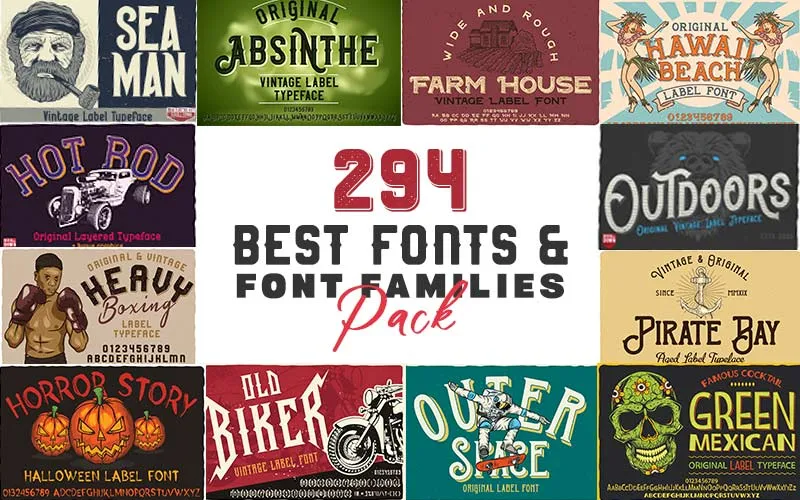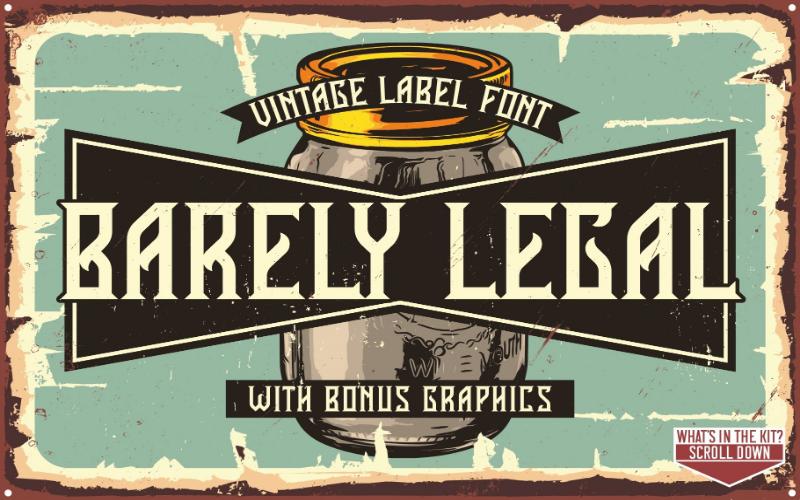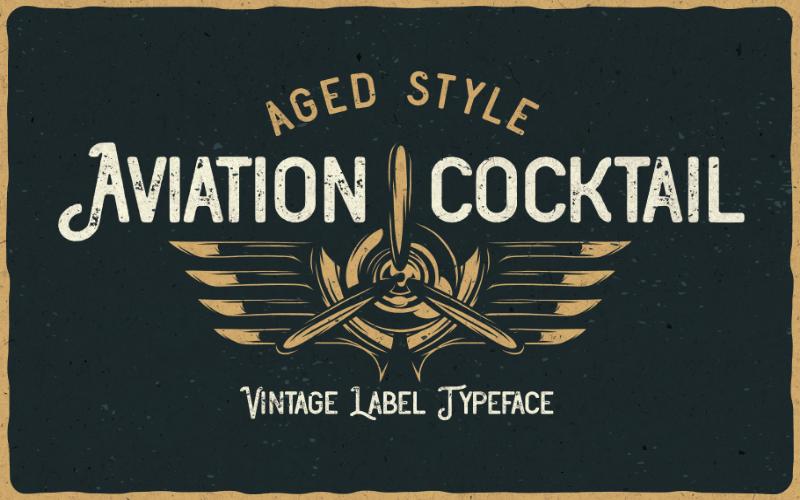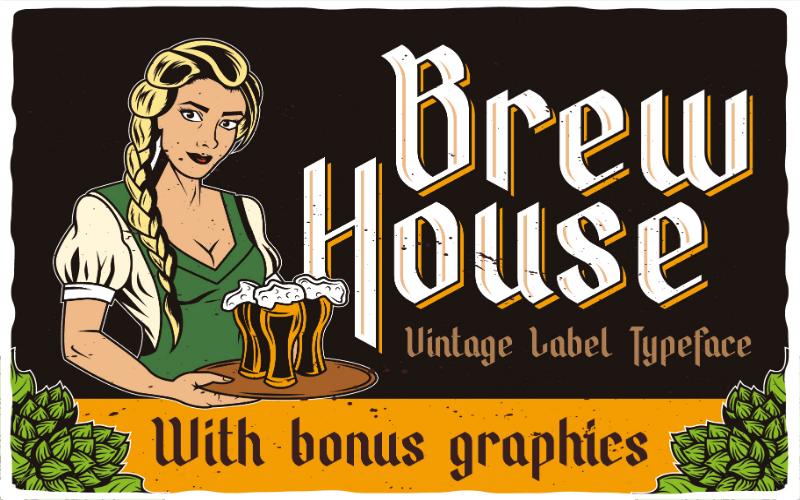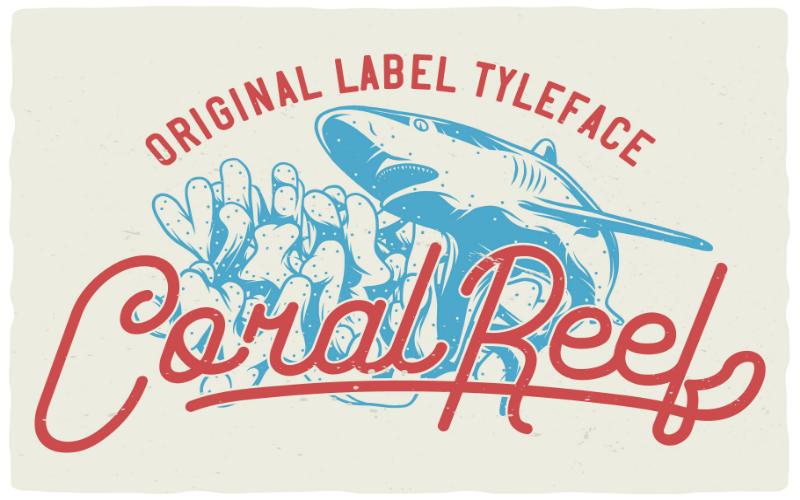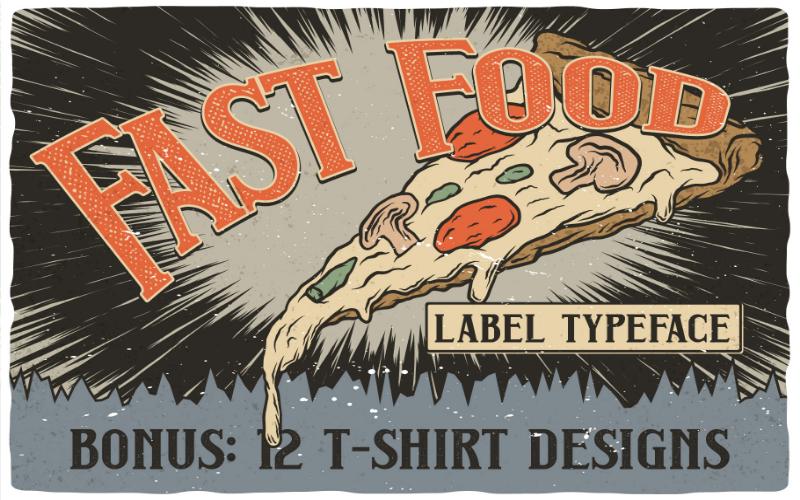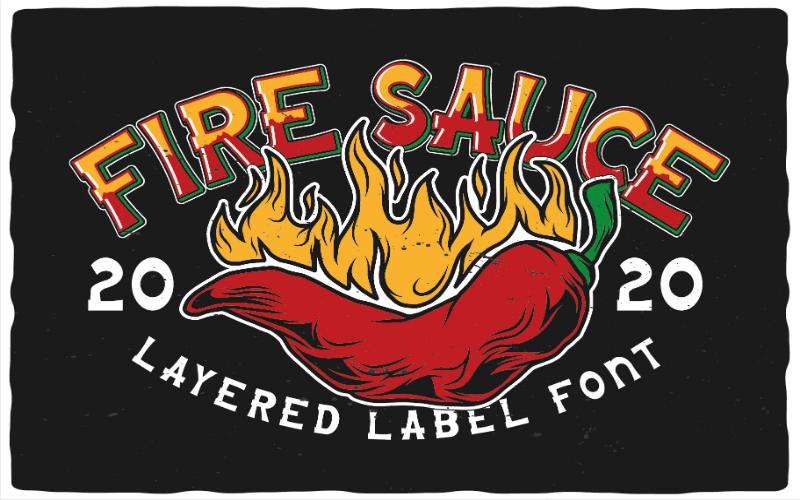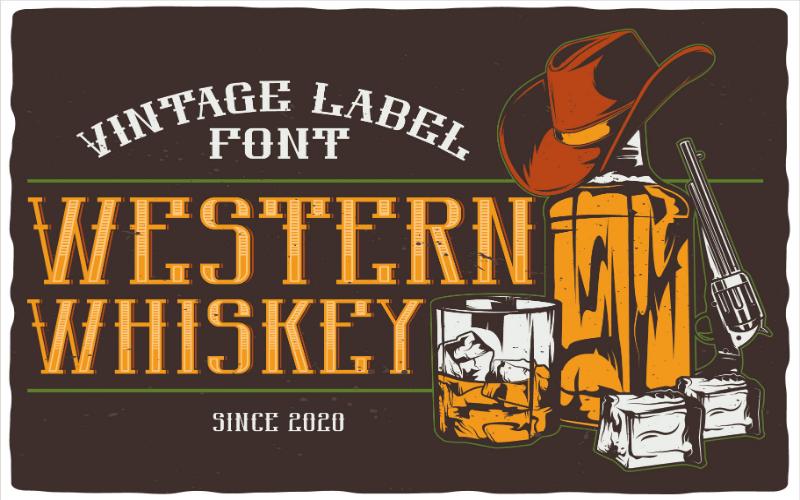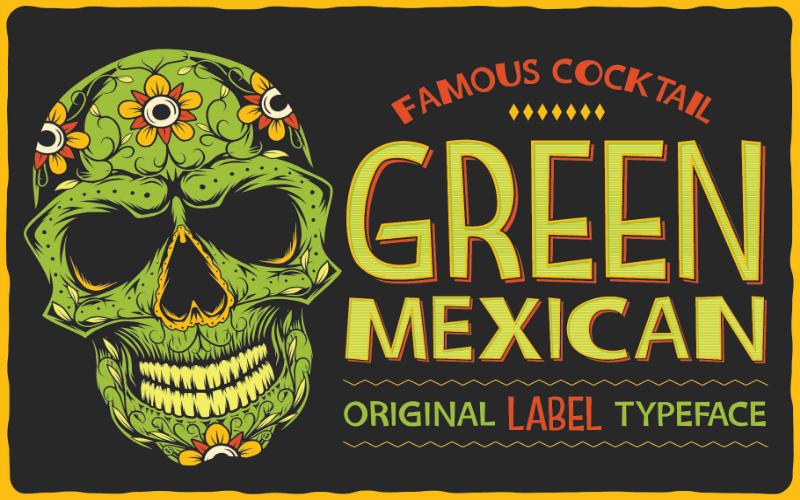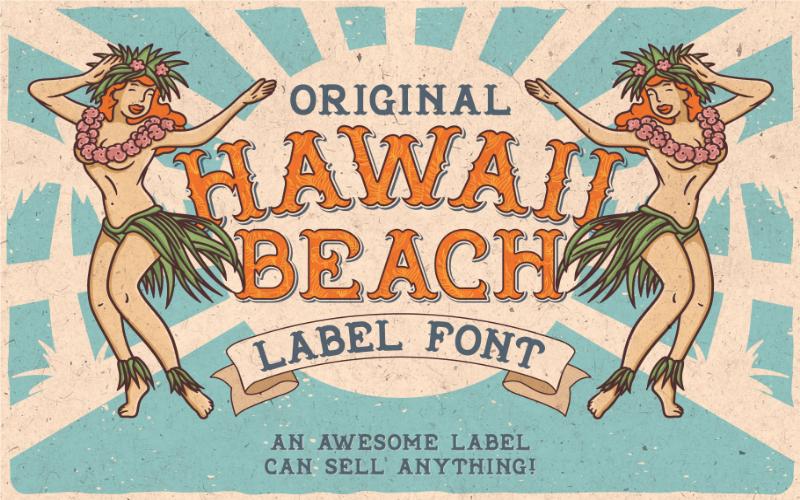
294 Best Fonts & Font Families Bundle
The bundle is a collection of 294 Best fonts divided across 3 bundles – the Vintage fonts bundle, the Vozzy fonts bundle, and the Modern fonts bundle.
They can be used to create any type of design be it rustic, contemporary, or stylish
The Best Fonts Bundle Includes:
The Vintage Font Bundle:
- Barely Legal Font
- Brewing Crafters Font
- Circus Sideshow Font
- Drunk Zombie Font
- Fun Baking Font
- Happy Trip Font
- Healthy Freak Font
- Race To Space Font
- Road Rage Font
- Seaman Font
- Stuntman Font
- Time To Play Font
- Tokugawa Font
- Unfair Font
- Urban Ink Font
- Vida Bandida Font
The Vozzy Font Bundle:
- Old Biker Font
- Coral Reef Font
- Original Absinthe Font
- Tattoo Master Font
- Horror Story Font
- Heavy Boxing Font
- Hawaii Beach Font
- Green Mexican Font
- Outer Space Font
- Aviation Cocktail Font
- Bodybuilder Font
- Classic BarberShop Font
- Biker Whiskey Font
- Bandidas Font
- Pirate Bay Font
- Farm House Font
- Hot Rod Font
- Beer Time Font
- Whiskey Trail Font
- Western Whiskey Font
- Outdoors Font
- Asgaard Font
- Bobber Motorcycles Font
- Space Vacation Font
The Modern Font Bundle:
- Fast Food Font
- 8 Cylinder Font
- Brew House Font
- Baskehouse Font
- Two Shots Font
- Metal Core Font
- Fire Sauce Font
- Mountain Expedition Font
- 294 Best Fonts
- Multi-lingual support
Vintage Fonts Bundle
Aviation Cocktail Font
Happy Trip Font
Barely Legal Font
Road Rage Font
Tokugawa Font
Western Whiskey Font
Vozzy Fonts Bundle
Green Mexican Font
Coral Leaf Font
Hawaii Beach Font
Modern Fonts Bundle
Fast Food Font
Brew House Font
Fire Sauce Font